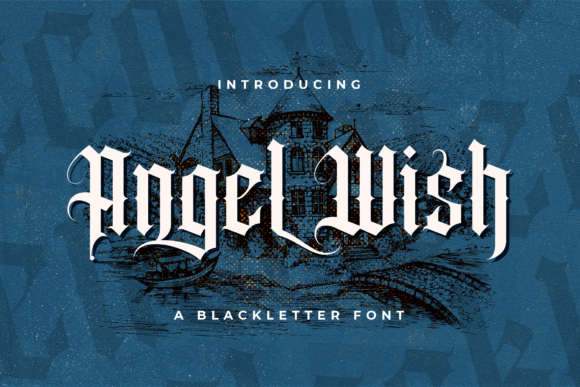
Dive into the enigmatic world of Angel Wish, a blackletter font exuding an aura of audacity and authenticity. This font, crafted with meticulous precision by StringLabs, is an invitation to embark on a journey of creative expression.
Unleash the captivating allure of your designs with Angel Wish. Its distinctive blackletter style commands attention, leaving an indelible mark on your audience. From logos that exude power to posters that radiate an air of mystique, Angel Wish is the key to unlocking your creative potential.
Step into a realm of visual enchantment, where every letter dances with a life of its own. Let Angel Wish elevate your branding efforts to new heights, creating a lasting impression that resonates with your target audience. Whether you're a seasoned designer or just starting your creative journey, Angel Wish is the perfect companion for your artistic endeavors.
Its dark, bold strokes evoke a sense of intrigue and mystery, perfect for capturing the essence of tattoo designs, album covers, or any project that demands a touch of edge. But Angel Wish is more than just a font; it's a gateway to a world of imagination and self-expression.
With Angel Wish as your creative ally, you'll discover a font that seamlessly blends the allure of the past with the dynamism of the present. It's a testament to the enduring power of blackletter fonts, reimagined for the modern age.
So, embrace the audacity of Angel Wish and watch as your designs transform into captivating works of art. Prepare to be mesmerized as this font takes you on an extraordinary journey of creative exploration.